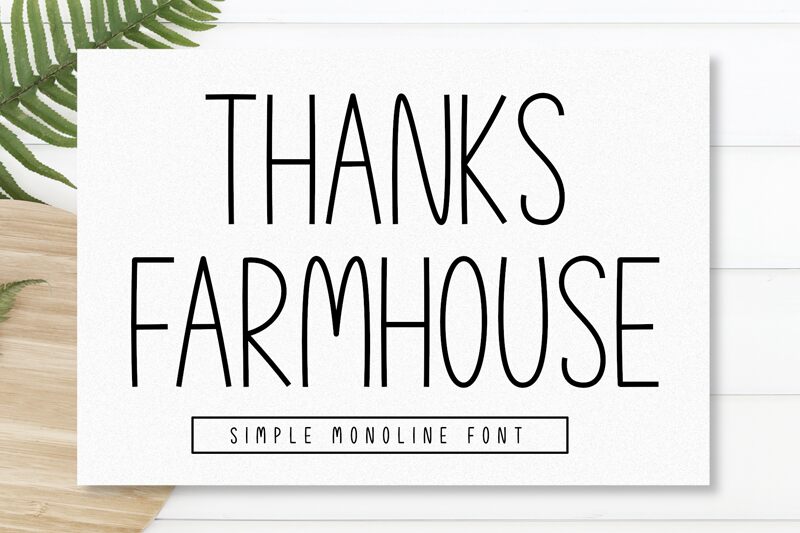
Thanks Farmhouse
Thanks Farmhouse, crafted by AV Type, is a distinctive display font that embodies a unique blend of rustic charm and modern simplicity. Its light weight and extra-condensed width create an aesthetically pleasing and highly legible typeface. The elongated letters with their subtle curves bring an air of elegance, while the narrow profile ensures efficient use of space without compromising on readability.
This font carries an organic feel that is perfect for designs seeking to convey warmth and authenticity. Whether it's used in branding for artisanal products, evocative editorial layouts, or quaint invitation cards, Thanks Farmhouse sets the tone with its understated yet charismatic style.
Its versatility extends to digital platforms as well, where its clean lines and clear spacing make it ideal for sleek web design. Thanks Farmhouse stands out as a typeface that not only catches the eye but also enriches the overall narrative of any creative project it graces.
AV Type
Rayvaldo Rizki Pratama Augusta